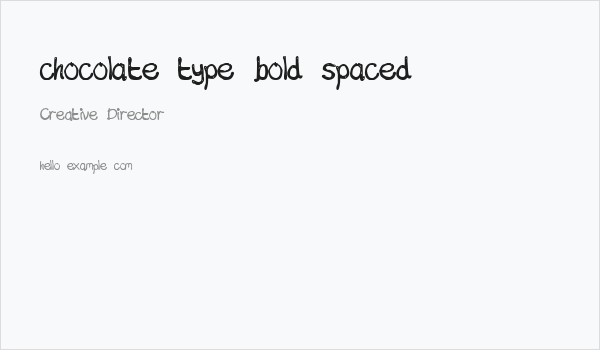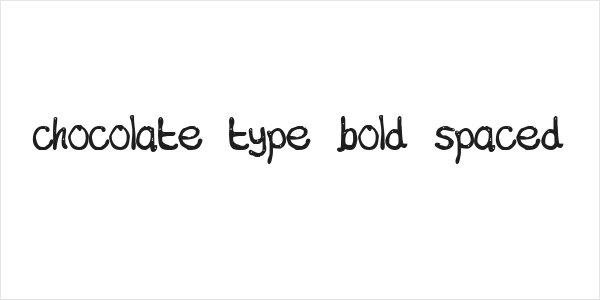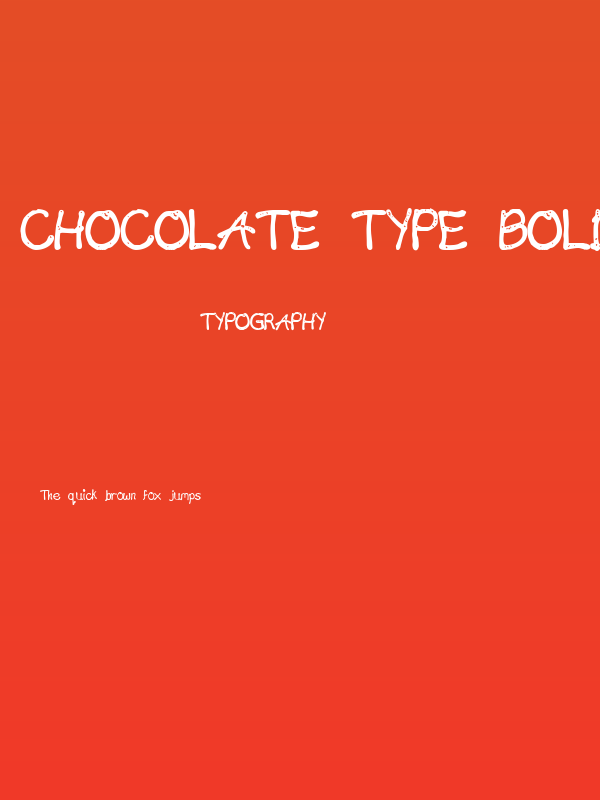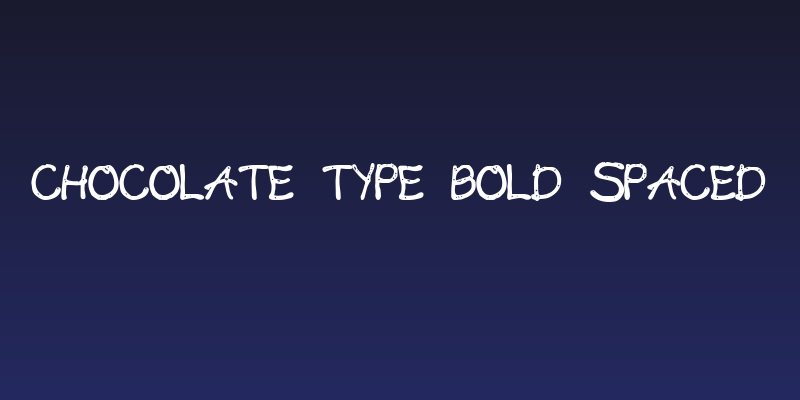
chocolate type bold spaced Font
chocolate type bold spaced Description
This playful and bold font features a hand-drawn style with a whimsical touch. The characters are rounded and slightly irregular, giving it a friendly and approachable appearance. The strokes are thick and consistent, with small decorative dots at the ends of some strokes, adding a unique flair. The font maintains a consistent weight throughout, providing a cohesive look. It is well-suited for projects that require a fun and informal tone, such as children's books, playful branding, or creative posters. The spacing between characters is slightly wide, enhancing readability and adding to its casual charm.
| Proposed Projects | Ideal for children's books, playful branding, creative posters, and informal designs. |